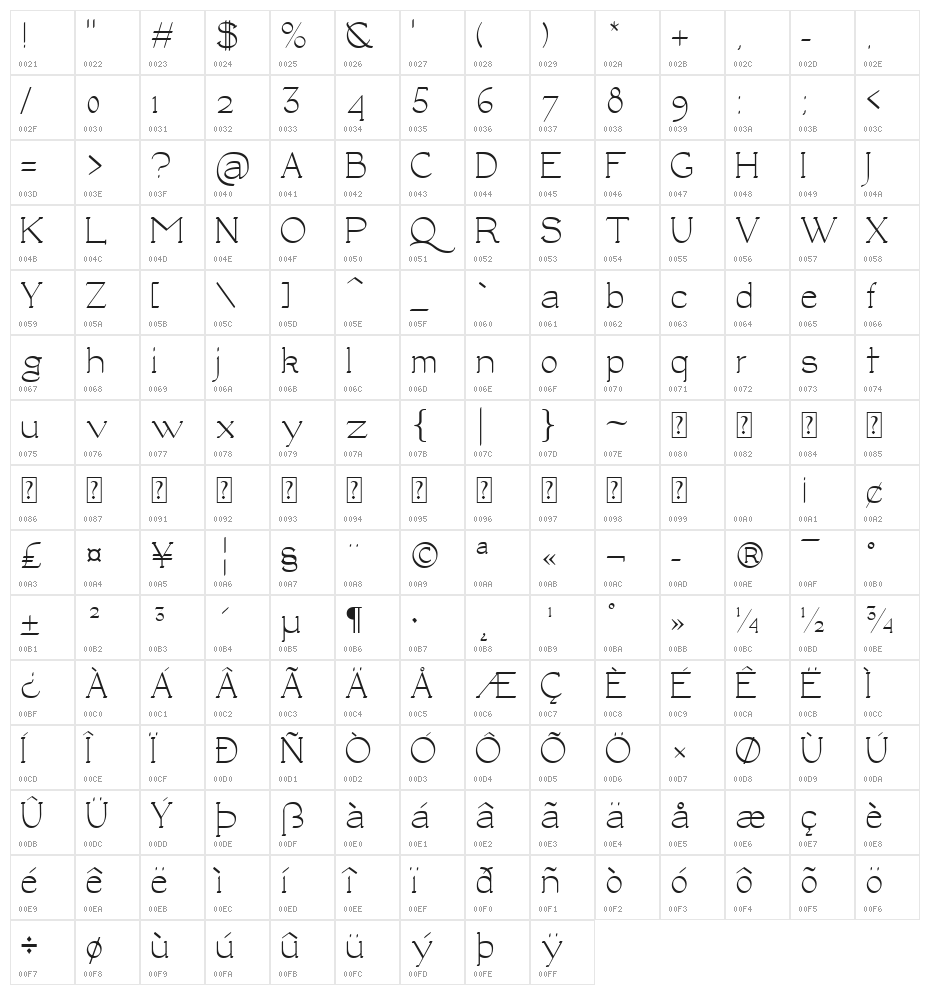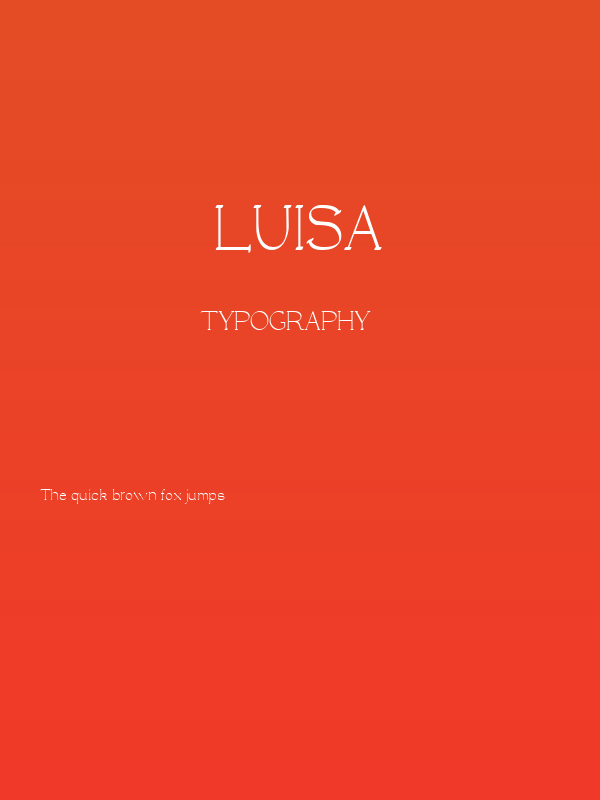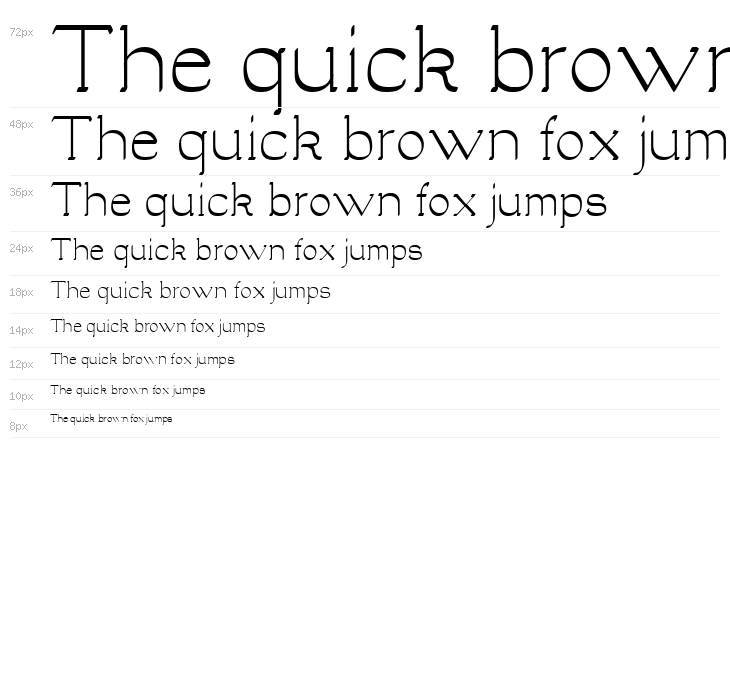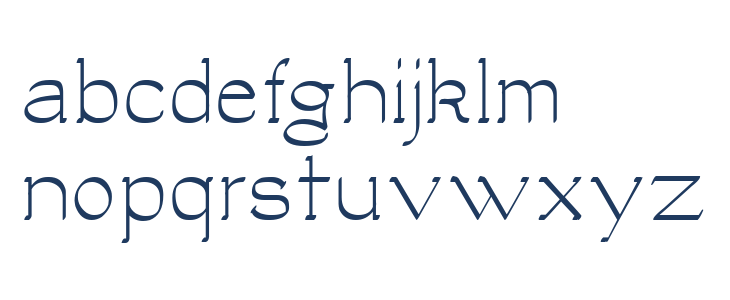
Luisa Font
Luisa Description
This font features a unique blend of modern and classic elements, characterized by its elegant and slightly elongated letterforms. The uppercase letters exhibit a sophisticated style with subtle curves and sharp edges, while the lowercase letters maintain a consistent flow with a touch of whimsy. The numerals are clean and easily readable, complementing the overall aesthetic. Special characters are thoughtfully designed, adding to the font's versatility. The font's distinct personality makes it suitable for a variety of creative projects.